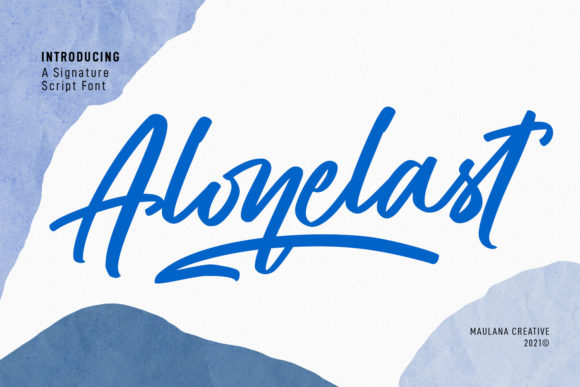
The Elegant Allure of Alonelast Font: A Designer’s Delight
I’ll never forget the time I was working on a wedding invitation project, and my client asked for a font that exuded elegance and sophistication. I scoured the internet, tried out countless fonts, but nothing seemed quite right. That was until I stumbled upon Alonelast Font. It was love at first sight! 💕
Alonelast is a stylish and incredibly elegant script font that has become a staple in my design toolkit. Its beautiful, flowing lines and intricate details make it perfect for adding a touch of luxury to any design project. In this article, I’ll share my experience with Alonelast, its features, and how to make the most of it in various design platforms.
An Honest Review of Alonelast Font
What I Love About Alonelast Font ✨
- 💫 Elegant and sophisticated design, perfect for high-end projects
- 🎨 Versatile and adaptable to various design styles and themes
- 📝 Supports OpenType features, glyphs, and stylistic alternates
- 🤔 Limited availability of condensed or bold weights
The Backstory of Alonelast Font
Alonelast Font was designed by a talented type designer who wanted to create a font that would evoke the feeling of luxury and sophistication. Inspired by traditional calligraphy and handwriting, Alonelast is a modern take on classic elegance. Although the designer prefers to remain anonymous, their work has gained popularity among designers and crafters worldwide.
Q: What is Alonelast Font best used for?
A: Alonelast Font is perfect for designs that require a touch of elegance and sophistication, such as wedding invitations, thank you cards, quotes, greeting cards, logos, and business cards.
Q: Is Alonelast Font available in different weights?
A: Currently, Alonelast Font is available in a single weight. However, the designer may release additional weights in the future.